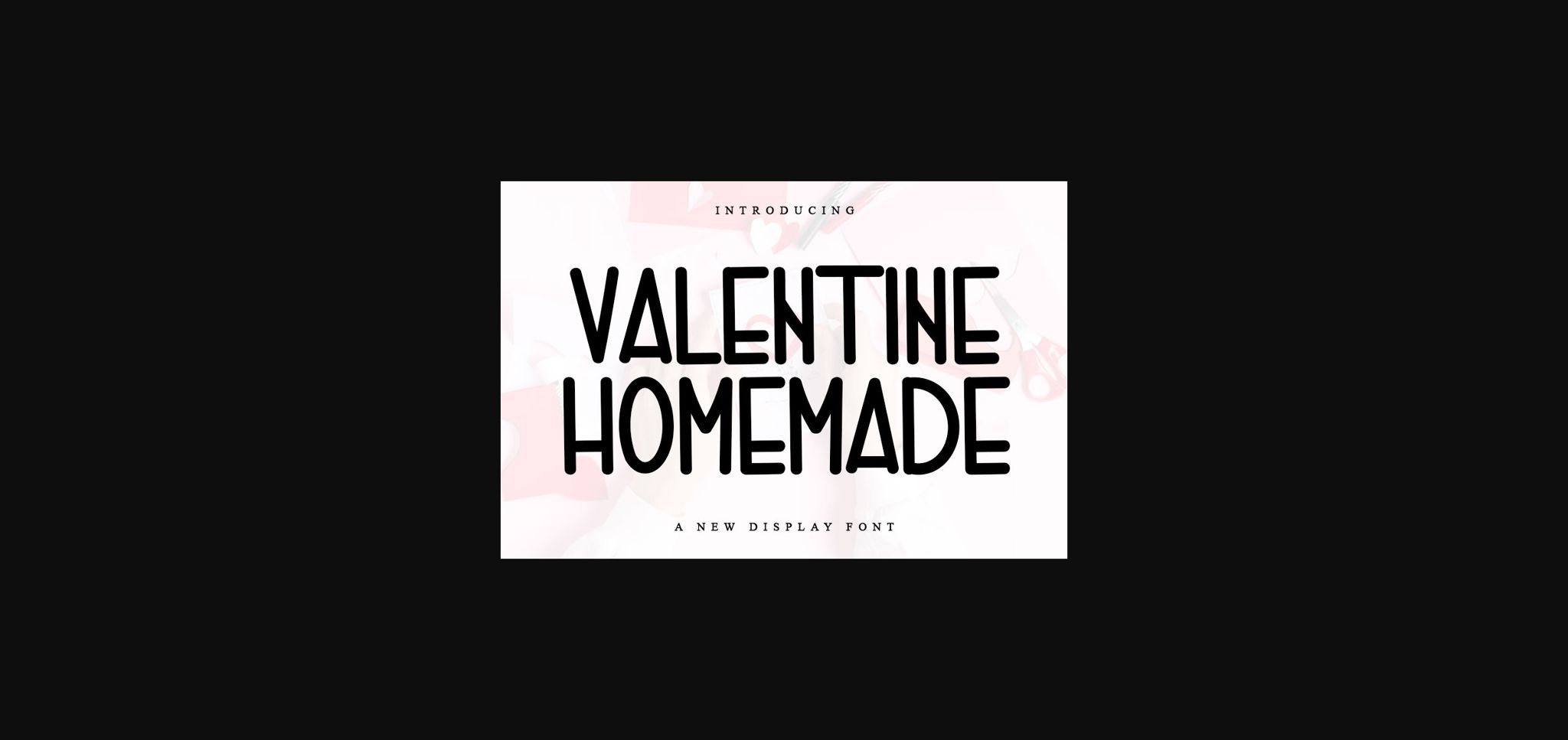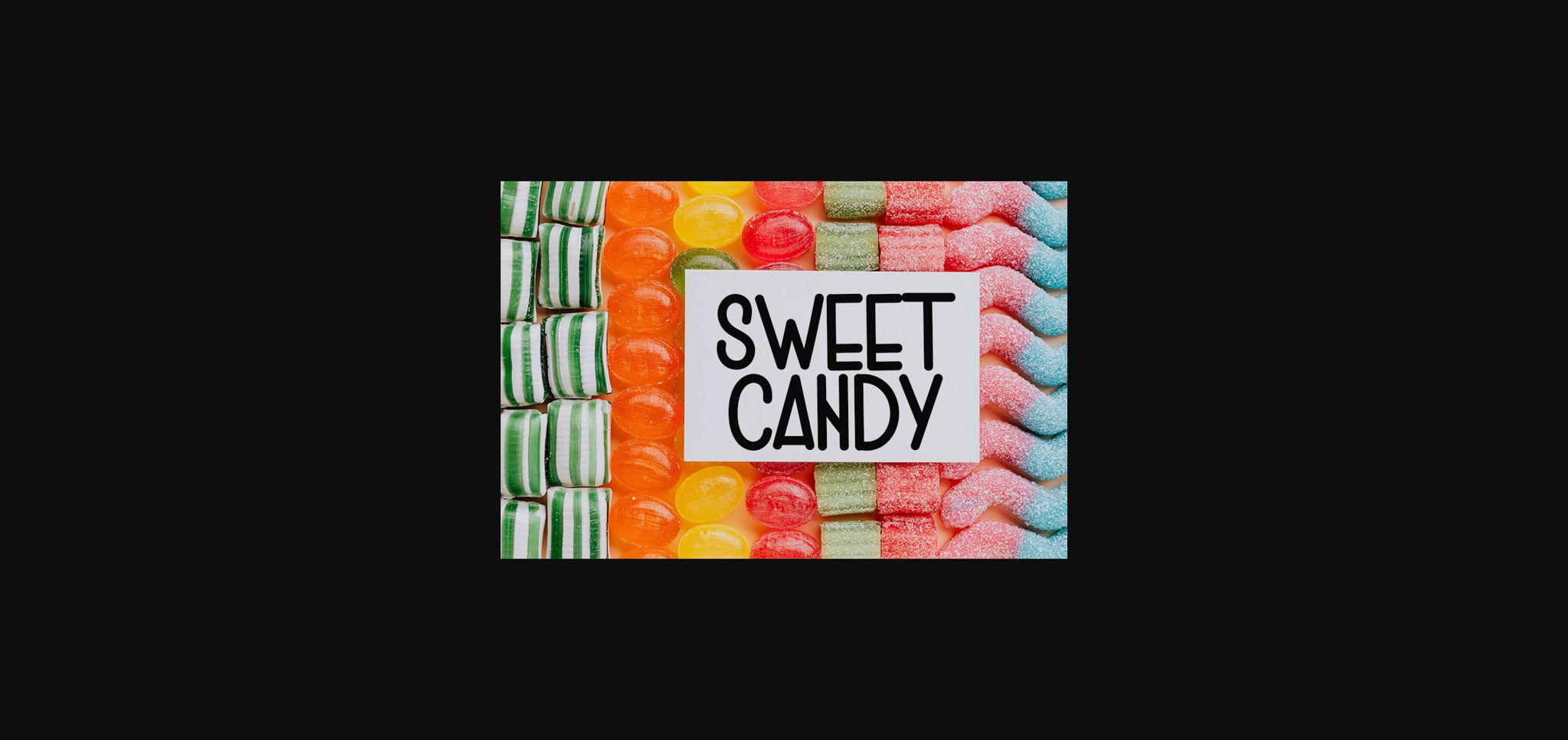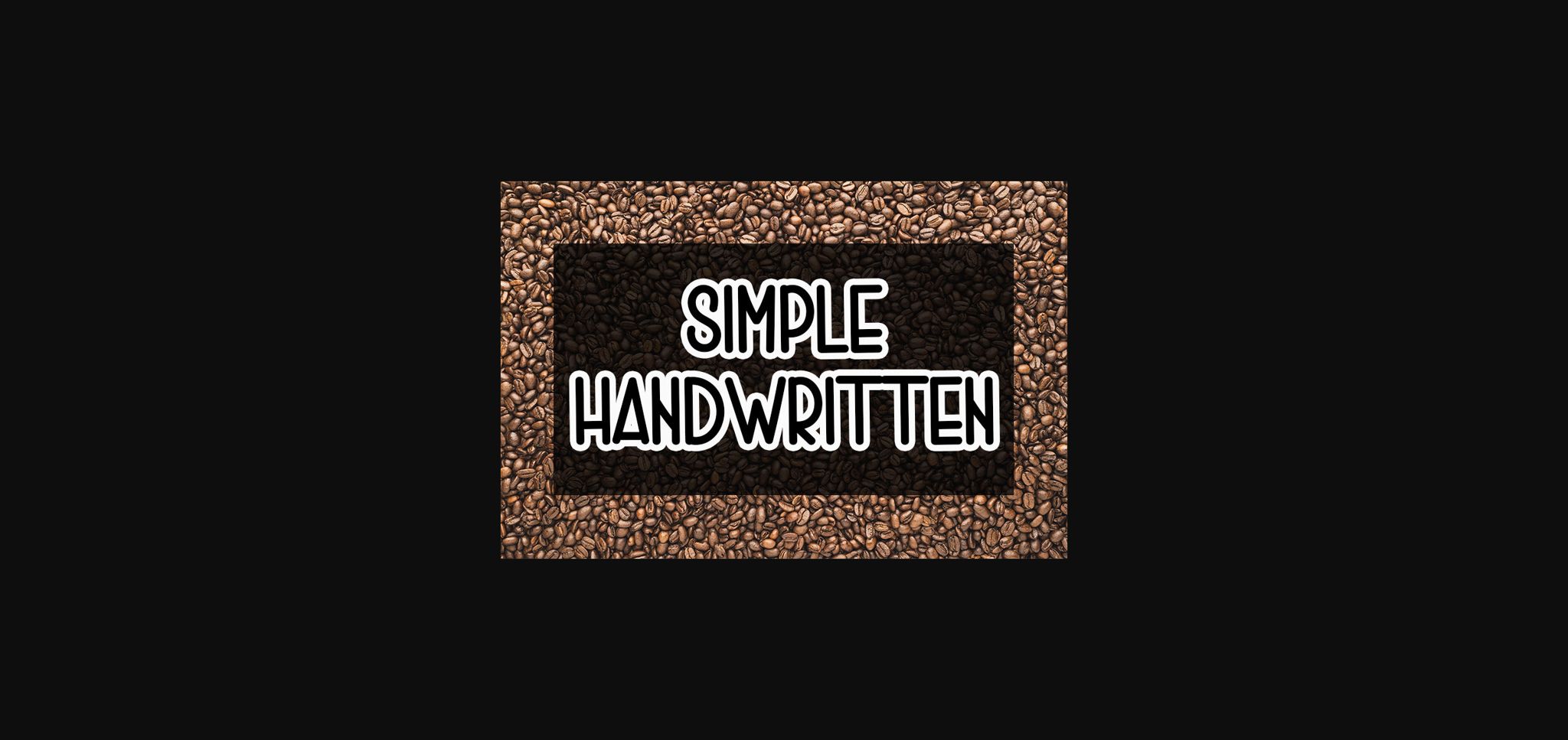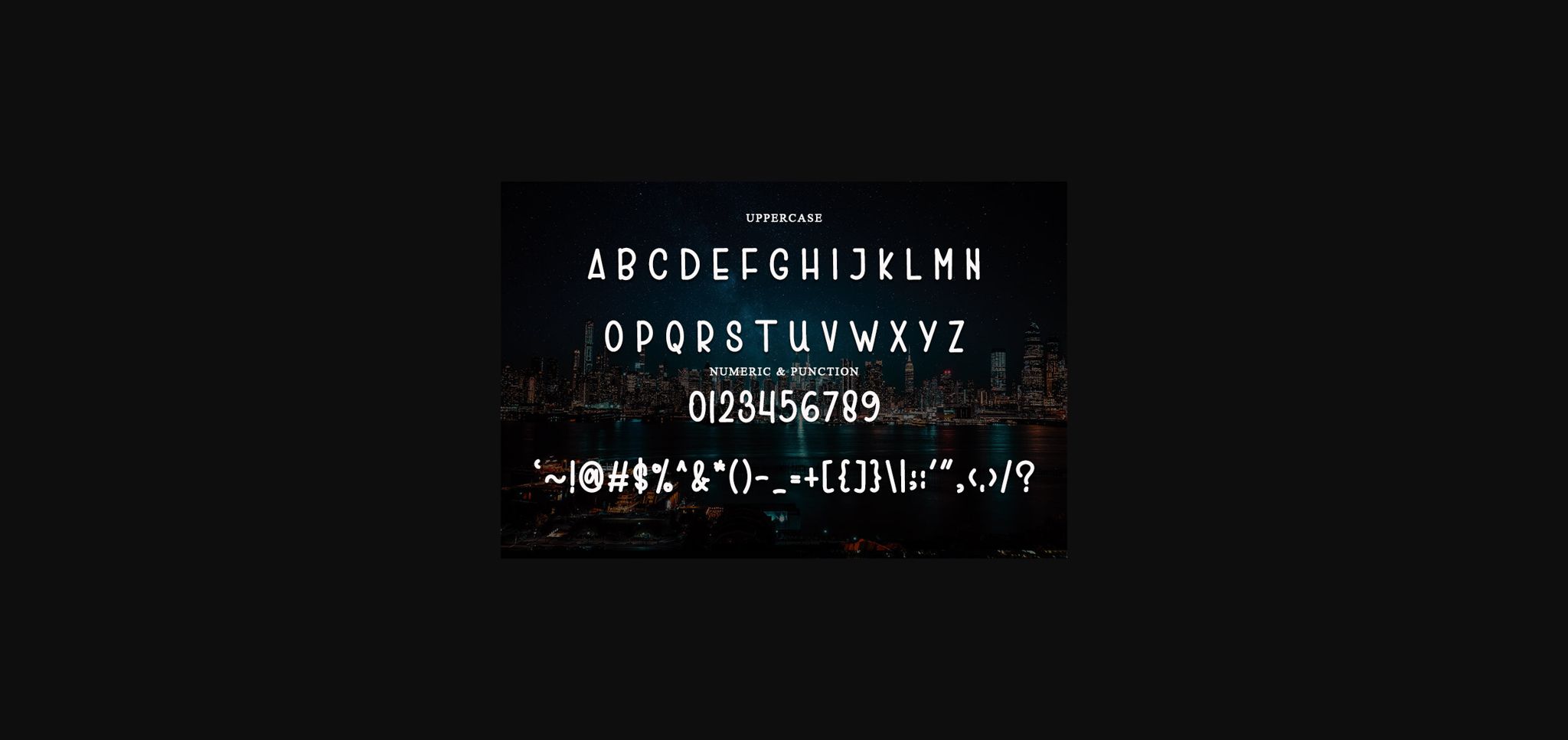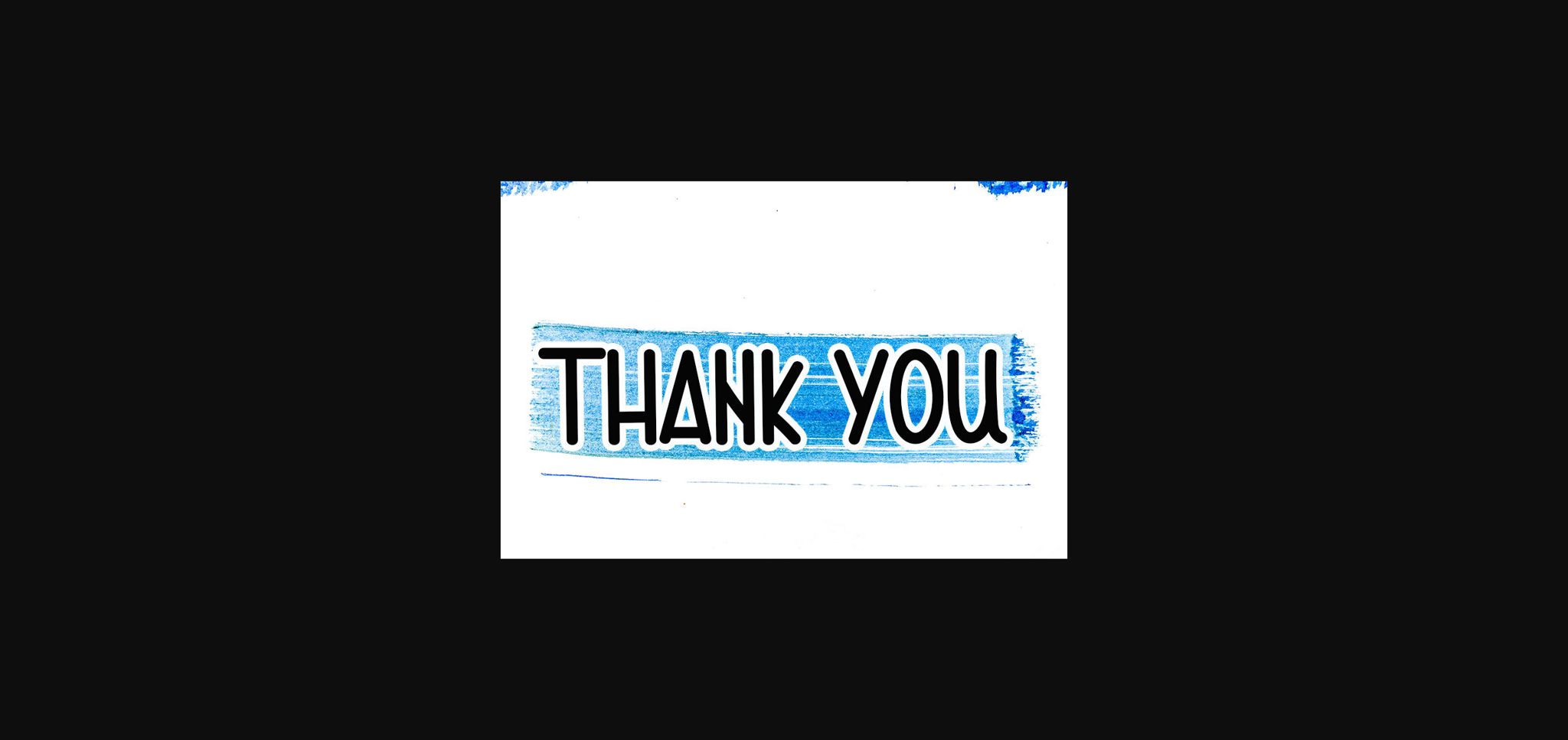
About Valentine Homemade Font
Valentine Homemade is a fun sans-serif font carefully created with a touch of elegance. Whether you’re looking for fonts for Instagram or calligraphy scripts for DIY projects, this font will turn any creative idea into a true piece of art!